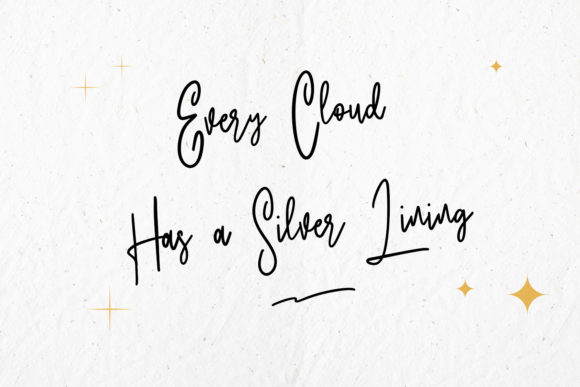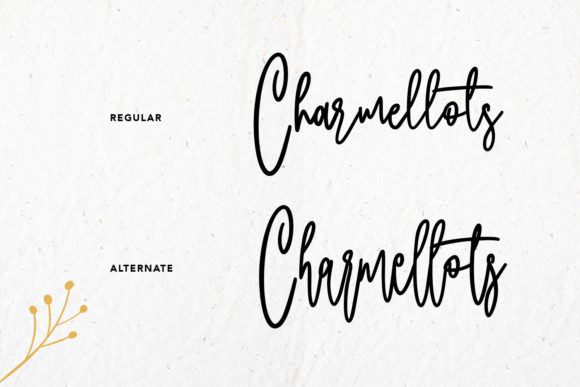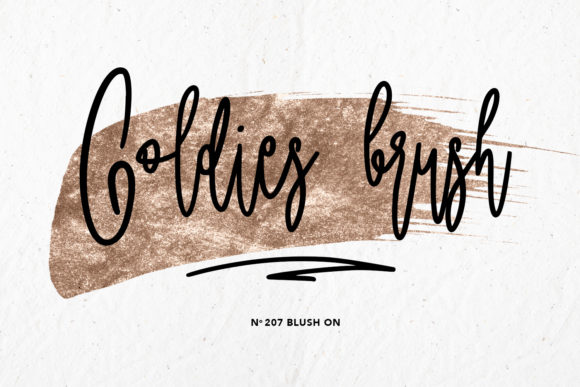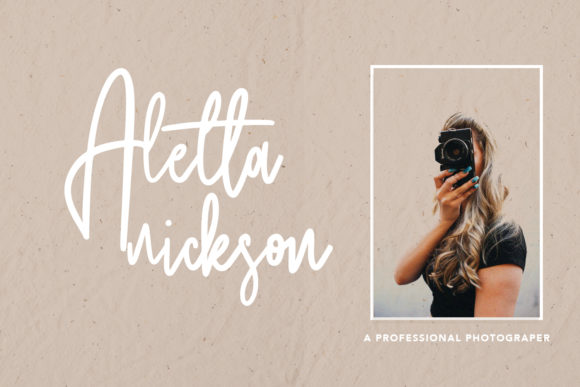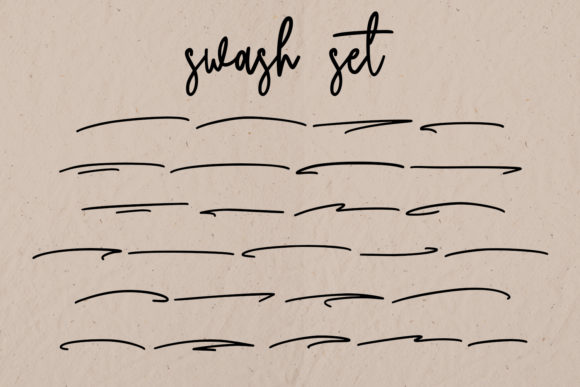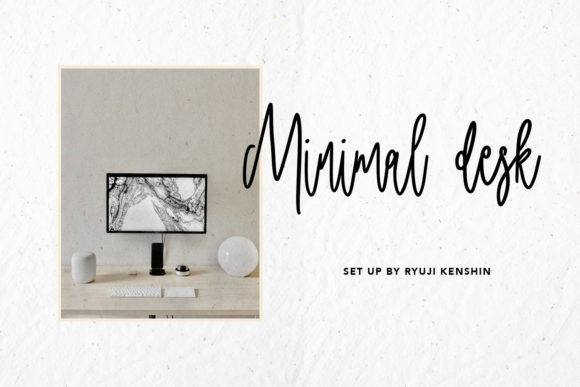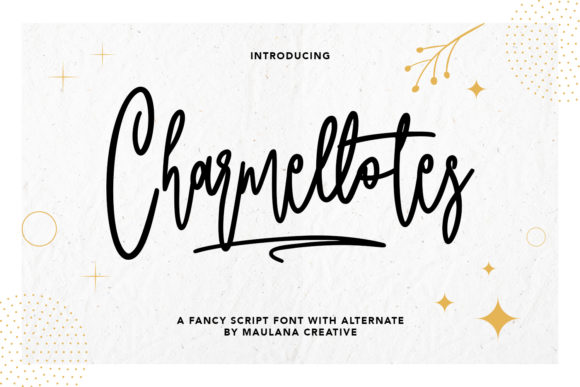
Introducing Charmellotes Font: The Perfect Addition to Your Crafting Projects
Are you a designer or crafter looking for a unique and personalized touch for your projects? Look no further than the Charmellotes font, a beautiful script font that is sure to add a touch of elegance and sophistication to any craft. In this article, we’ll take a closer look at the Charmellotes font, its features, and how you can use it to elevate your crafting projects.
What is Charmellotes Font?
Charmellotes is a unique script font that is designed to add a personal touch to your crafting projects. With its elegant and flowing lines, this font is perfect for creating handmade cards, gift tags, scrapbooking, and other paper crafts. The Charmellotes font is a one-of-a-kind font that is sure to make your projects stand out from the crowd.
Features of Charmellotes Font
The Charmellotes font has several features that make it a great addition to your crafting projects. Some of its key features include:
- Unique and elegant design: The Charmellotes font has a beautiful, flowing design that is sure to add a touch of elegance to your projects.
- Script style: The font has a script style that is perfect for creating personalized and handmade crafts.
- Easy to read: Despite its elegant design, the Charmellotes font is easy to read, making it perfect for use in a variety of crafting projects.
- Versatile: The Charmellotes font can be used in a variety of crafting projects, including handmade cards, gift tags, scrapbooking, and more.
How to Use Charmellotes Font in Your Crafting Projects
Using the Charmellotes font in your crafting projects is easy. Here are a few ideas to get you started:
- Handmade cards: Add a personal touch to your handmade cards with the Charmellotes font. Use it to write out the recipient’s name, a special message, or a greeting.
- Gift tags: Use the Charmellotes font to create beautiful gift tags that are sure to make your gifts stand out.
- Scrapbooking: Add a touch of elegance to your scrapbooking projects with the Charmellotes font. Use it to write out captions, journaling, or other text.
- Paper crafts: The Charmellotes font is perfect for use in a variety of paper crafts, including paper flowers, garlands, and more.
Tips for Using Charmellotes Font
Here are a few tips for using the Charmellotes font in your crafting projects:
- Experiment with different colors: The Charmellotes font looks great in a variety of colors. Experiment with different colors to find the one that works best for your project.
- Use it sparingly: While the Charmellotes font is beautiful, it can be overwhelming if used too much. Use it sparingly to add a touch of elegance to your project.
- Pair it with other fonts: The Charmellotes font pairs well with other fonts. Experiment with pairing it with different fonts to create a unique look.
The Charmellotes font is a unique and beautiful script font that is perfect for adding a personal touch to your crafting projects. With its elegant design and easy-to-read style, it’s sure to make your projects stand out from the crowd. Whether you’re a designer or crafter, the Charmellotes font is a great addition to your toolkit. So why not give it a try and see how it can elevate your crafting projects?
- What is the Charmellotes font?: The Charmellotes font is a unique script font designed for use in crafting projects.
- Is the Charmellotes font easy to read?: Yes, the Charmellotes font is easy to read, making it perfect for use in a variety of crafting projects.